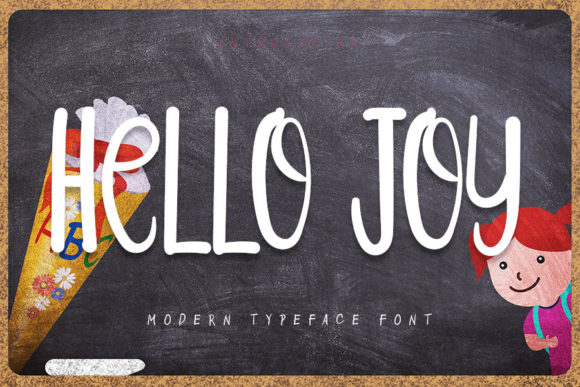
Say hello to Hello Joy Font – a burst of joy that will ignite your creativity and bring authenticity to your designs. Created by the talented team at ONE DESIGN, this enchanting script font is a perfect fit for those looking to add a touch of playfulness and warmth to their projects.
Hello Joy Font is a feast for the eyes, crafted with the utmost care and attention to detail. Each character dances across the page with a distinct charm, mirroring the joy and lightheartedness that inspired its creation. Handwritten with a touch of quirk, this font is as unique as your imagination, ready to transform your designs into masterpieces that resonate with your audience.
With Hello Joy Font in your arsenal, your possibilities are endless. Let your creativity soar as you weave captivating children's storybooks, design charming stationery that sparks conversation, or craft engaging games that bring smiles to faces. The crafty ideas this font unlocks are as limitless as your imagination.
Embrace Hello Joy Font and step into a world of boundless creativity. Its friendly style and approachable nature will make your designs shine with authenticity, capturing the hearts of all who encounter them. Embrace the joy, spread the joy, and let Hello Joy Font be your guiding light on your creative journey.